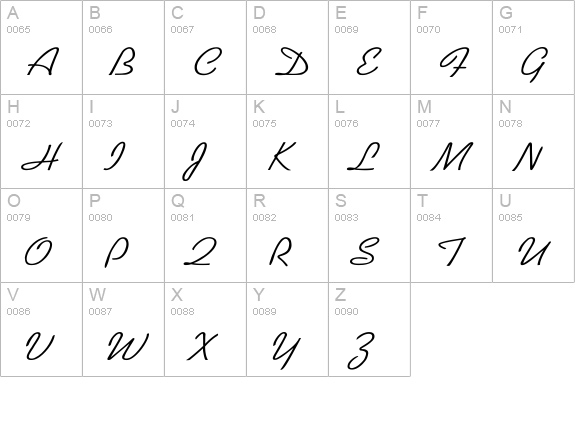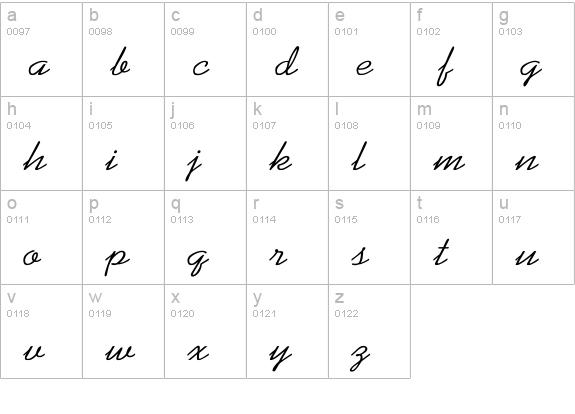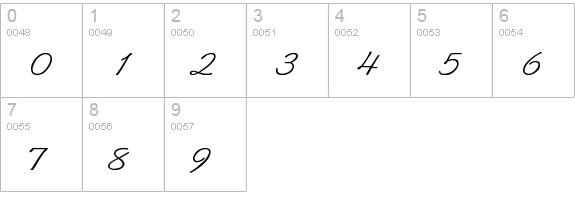
Kaufmann-Normal Wd Font Details
Kaufmann-Normal Wd is the standard, neutral variant in the Kaufmann typeface family \xE2\x80\x94 well suited to general body text, paragraphs, and standard typographic work.
Kaufmann-Normal Wd is a beautifully crafted font that exudes elegance and sophistication. With its sleek and fluid strokes, this font is perfect for adding a touch of class to any design project. Whether you're creating wedding invitations, branding materials, or simply adding a stylish flair to your personal projects, Kaufmann-Normal Wd is sure to impress. What sets Kaufmann-Normal Wd apart is not only its stunning aesthetic but also its accessibility. This font is freely available to download at FontsMarket.com, making it an excellent choice for designers and creatives on a budget. By offering this font for free, the creators have ensured that anyone can have access to its exquisite style without breaking the bank. The versatility of Kaufmann-Normal Wd is another notable feature. It is equally suitable for both print and digital designs, ensuring that your creations will look stunning across various mediums. Its legibility and readability make it a reliable choice for headlines, body text, or even intricate details. Adding Kaufmann-Normal Wd to your font collection is a wise choice for anyone looking to elevate their designs with a touch of sophistication. Its timeless appeal and freely available download make it a must-have for designers, whether they are professionals or enthusiasts. Don't miss out on the opportunity to enhance your projects with this remarkable font. Download Kaufmann-Normal Wd today from FontsMarket.com and unlock a world of limitless design possibilities.